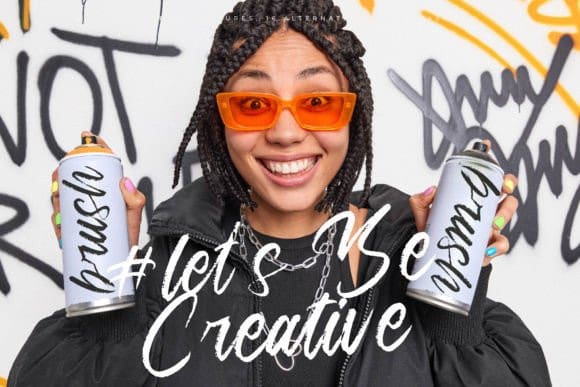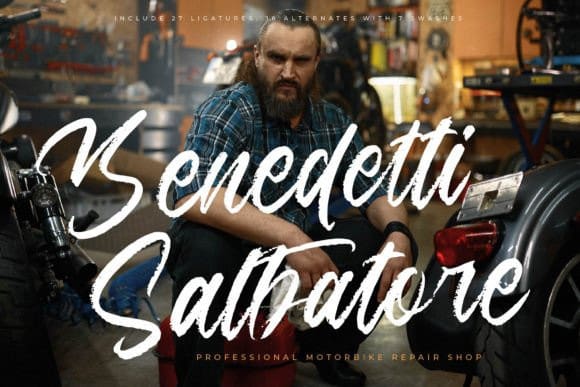
Montellast Knights Font
Montellast Knights Font is a modern and charming handwritten font that exudes elegance and personality. Its graceful, flowing strokes and sophisticated character make it perfect for upscale invitations, personal branding, and chic editorial designs. Elevate your projects with the refined allure and warmth of this font.